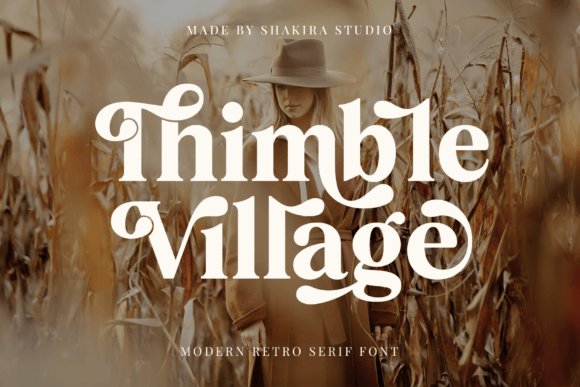
Introducing Thimble Village Font: Elevate Your Designs with Elegance and Sophistication
Are you looking for a font that can add a touch of vintage flair to your designs? Look no further than Thimble Village Font, a stunning Serif Display Font that is perfect for creating bold, gorgeous headlines and elegant designs. With its contrasting lines and curved terminals, this font is sure to give your logos, holiday cards, wedding invitations, quotes, advertisements, and more a sleek, elegant look that will leave a lasting impression.
What is Thimble Village Font?
Thimble Village Font is a Serif Display Font that is designed to add a touch of sophistication and elegance to your designs. This font is perfect for anyone who wants to create bold, eye-catching headlines and elegant text that will stand out from the crowd. With its unique blend of contrasting lines and curved terminals, Thimble Village Font is sure to add a touch of vintage flair to any design.
Key Features of Thimble Village Font
- Serif Display Font: Thimble Village Font is a Serif Display Font that is designed to make a statement. Its bold, elegant lines are perfect for creating eye-catching headlines and text.
- Contrasting Lines and Curved Terminals: The contrasting lines and curved terminals of Thimble Village Font give it a sleek, elegant look that is perfect for logos, holiday cards, wedding invitations, quotes, advertisements, and more.
- PUA Encoded: Thimble Village Font is PUA encoded, which means that you can access all of the amazing glyphs and ligatures with ease. This makes it easy to create complex designs and text without having to worry about compatibility issues.
- Vintage Flair: Thimble Village Font has a unique vintage flair that is perfect for anyone who wants to add a touch of elegance and sophistication to their designs.
Uses for Thimble Village Font
Thimble Village Font is a versatile font that can be used for a wide range of design projects. Here are some ideas for using this font:
- Logos: Thimble Village Font is perfect for creating elegant, sophisticated logos that will make your brand stand out.
- Holiday Cards: Add a touch of vintage flair to your holiday cards with Thimble Village Font.
- Wedding Invitations: Create beautiful, elegant wedding invitations with Thimble Village Font.
- Quotes: Use Thimble Village Font to create stunning quote graphics that will inspire and motivate your audience.
- Advertisements: Thimble Village Font is perfect for creating eye-catching advertisements that will grab the attention of your target audience.
Benefits of Using Thimble Village Font
There are many benefits to using Thimble Village Font in your designs. Here are some of the most significant advantages:
- Elegance and Sophistication: Thimble Village Font adds a touch of elegance and sophistication to any design.
- Versatility: This font can be used for a wide range of design projects, from logos and holiday cards to wedding invitations and advertisements.
- Easy to Use: Thimble Village Font is PUA encoded, which makes it easy to access all of the amazing glyphs and ligatures.
- Unique Vintage Flair: This font has a unique vintage flair that will set your designs apart from the crowd.
Tips for Using Thimble Village Font
Here are some tips for getting the most out of Thimble Village Font:
- Experiment with Different Sizes: Thimble Village Font looks great in a variety of sizes, so don’t be afraid to experiment and find the perfect size for your design.
- Pair with Other Fonts: This font pairs well with a variety of other fonts, so try pairing it with some of your favorite fonts to create a unique look.
- Use the Glyphs and Ligatures: Thimble Village Font has a range of amazing glyphs and ligatures that can add an extra touch of elegance and sophistication to your designs.
Thimble Village Font is a stunning Serif Display Font that is perfect for anyone who wants to add a touch of elegance and sophistication to their designs. With its contrasting lines and curved terminals, this font is sure to give your logos, holiday cards, wedding invitations, quotes, advertisements, and more a sleek, elegant look that will leave a lasting impression. Whether you’re a designer, a small business owner, or just someone who loves to create, Thimble Village Font is a great choice for any design project.